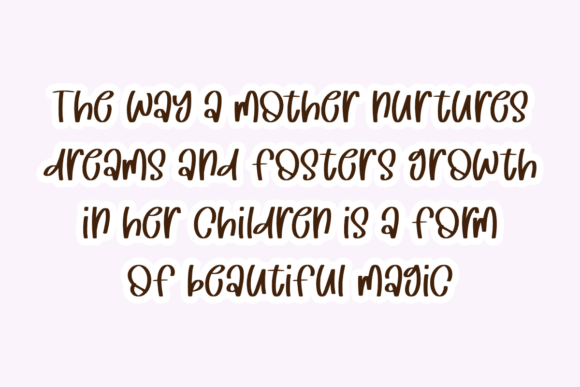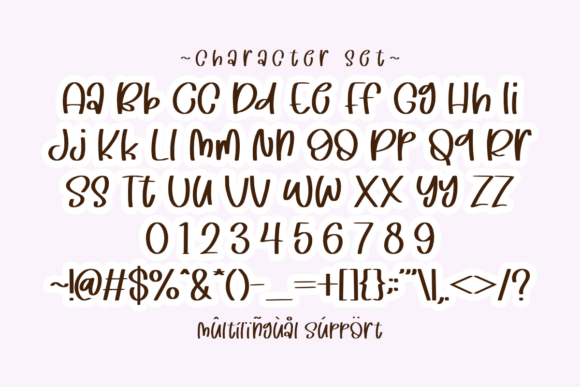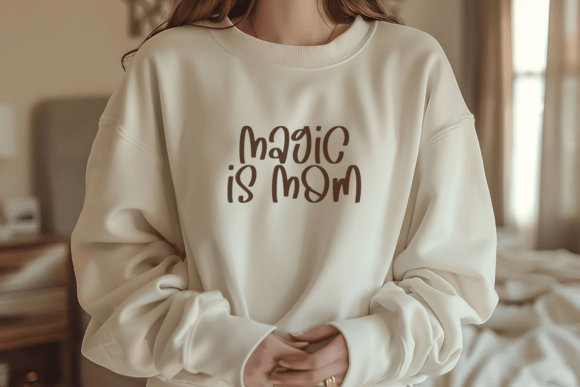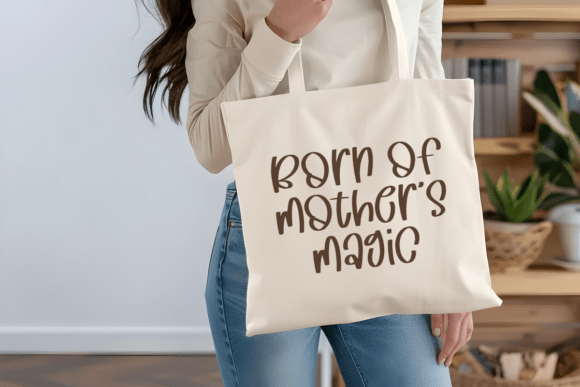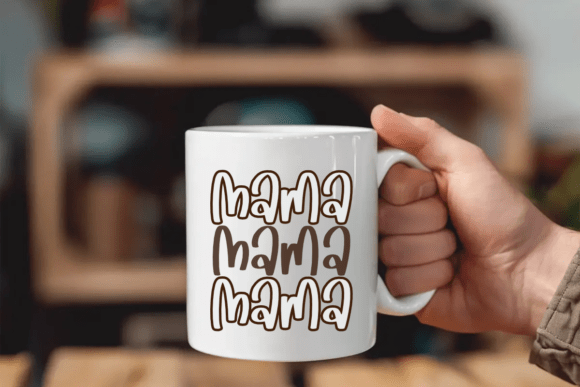
Introduction to Magic Mother Font
Have you ever been in the midst of a creative project, searching for the perfect font to convey the emotions and love behind a design? I know I have. Recently, I found myself designing a birthday card for my little one, and I was on the hunt for a font that would capture the magic of motherhood. That’s when I stumbled upon the enchanting Magic Mother Font.
This whimsical handwritten font is a game-changer for designers who want to create high-quality, heartfelt designs. With its bouncy letters and warm style, the Magic Mother Font is perfect for celebrating motherhood, parenting content, baby products, and more. Plus, it’s available for free download, making it a valuable resource for designers of all levels.
Whether you’re working on a creative project or simply want to add a personal touch to a design, the Magic Mother Font is sure to bring a sense of warmth and nurturing to your work. In this article, we’ll take a closer look at this amazing font and explore its many uses and benefits.
Key Features of Magic Mother Font
- High-quality design resource with a unique, elegant style, perfect for creative projects.
- Features a transparent background, allowing for seamless integration into your design without any unwanted elements.
- Designed to be versatile, suitable for use in a variety of creative projects, from logos and branding to digital art and more.
- Includes a range of characters and glyphs, including Latin and Cyrillic scripts, to cater to a global audience.
Honest Review: Magic Mother Font
I recently had the chance to work with the Magic Mother Font, and I must say it’s been a delightful experience. As a designer, I’m always on the lookout for high-quality design resources that can elevate my creative projects. The Magic Mother Font definitely delivers on that front.
- Transparent background: This feature allows for seamless integration with images and other design elements, making it a great choice for designers who want to create visually appealing compositions.
- High-quality design: The font is well-crafted and has a unique, magical feel to it, which is perfect for designers looking to add a touch of whimsy to their work.
However, I do have to mention a few limitations: ⚠️ The font is not as extensive as some other fonts on the market, with a relatively small character set. Additionally, some of the characters may require additional formatting to look their best.
Overall, I’m really impressed with the Magic Mother Font. It’s a great addition to any designer’s toolkit, and I’d definitely recommend it to anyone looking for a high-quality, free design resource.
Tips for Getting the Most Out of the Magic Mother Font
To get the most out of the Magic Mother Font, use it in conjunction with a transparent background to create a clean and modern look. You can also experiment with different font sizes and styles to add visual interest to your design.
Common Use Cases for the Magic Mother Font
The Magic Mother Font is ideal for use in a variety of creative projects, including logos, branding materials, and social media graphics. Its high-quality design and transparent background make it perfect for use in a range of design software, including Canva, Adobe Photoshop/Illustrator, and PowerPoint/Word.